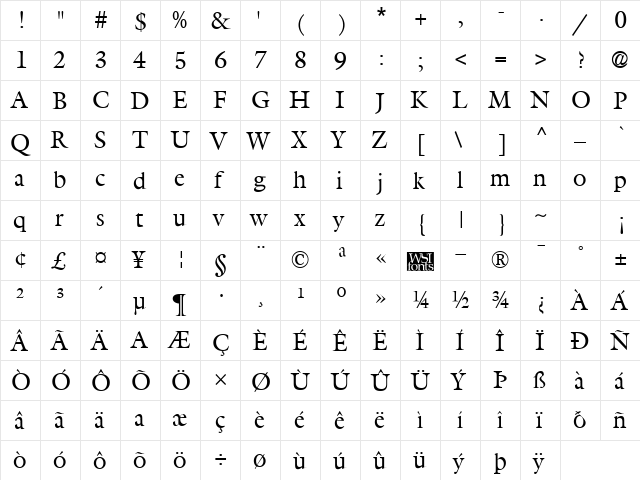
Gilliad Regular
Design Context for Gilliad Typeface
Gilliad offers clean, dependable letterforms without strong stylistic allegiance, making it a practical choice for designers who need flexibility.
Pro Tip: Pair Gilliad with a font of contrasting weight or personality to build a more expressive typographic hierarchy.